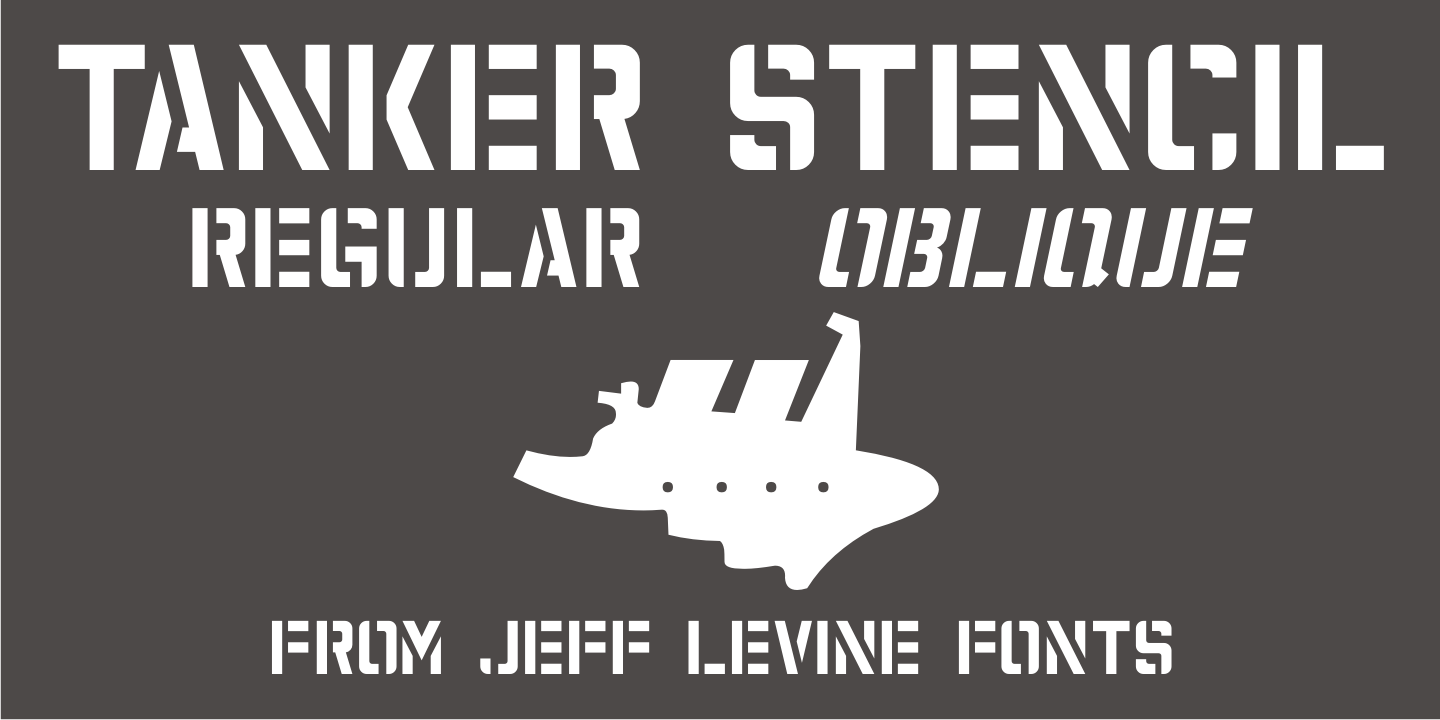
Tanker Stencil
Tanker Stencil JNL is a sans serif design based on a vintage hand-punched brass marking stencil for oil barrels.
Tanker Stencil JNL Regular by Jeff Levine Fonts